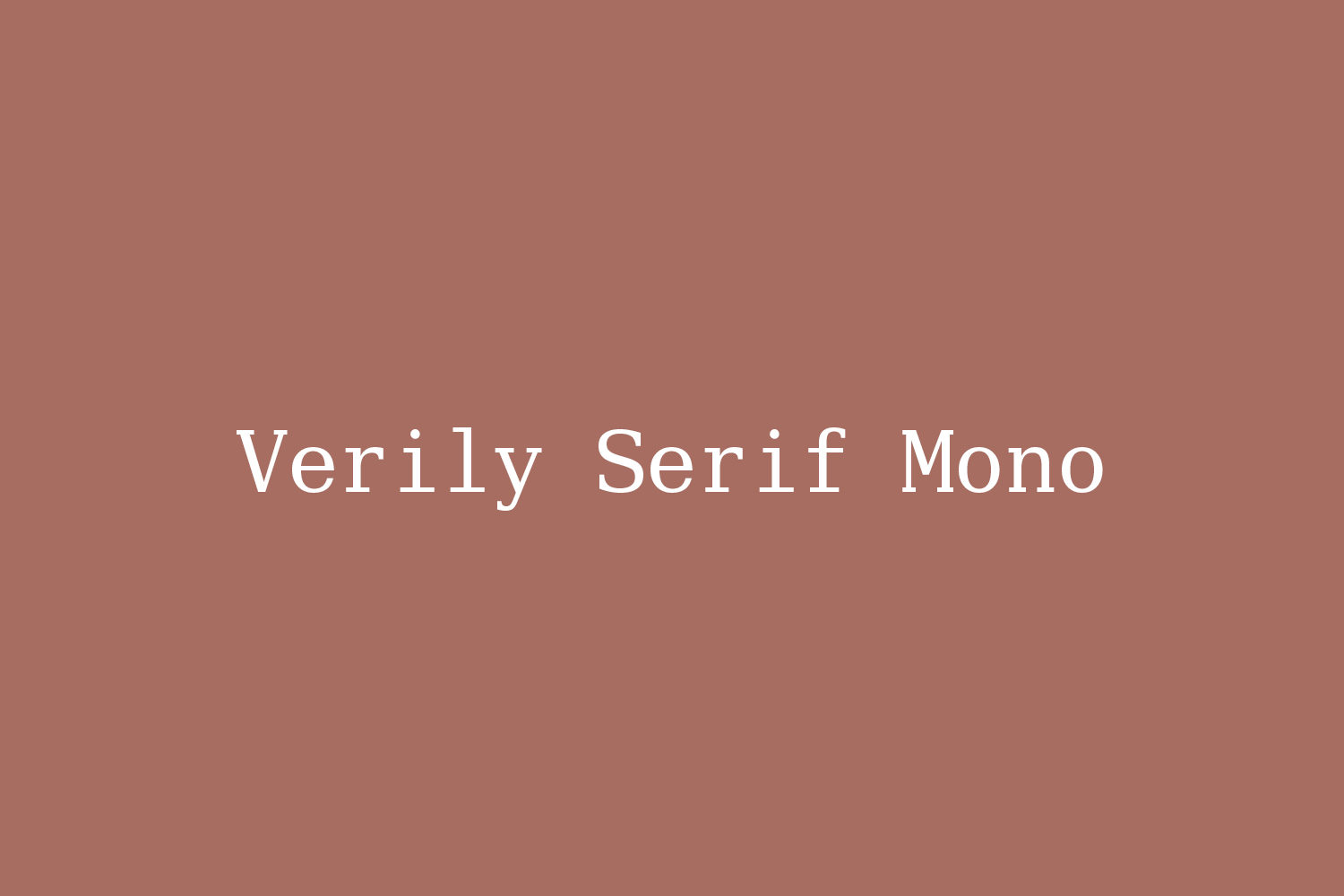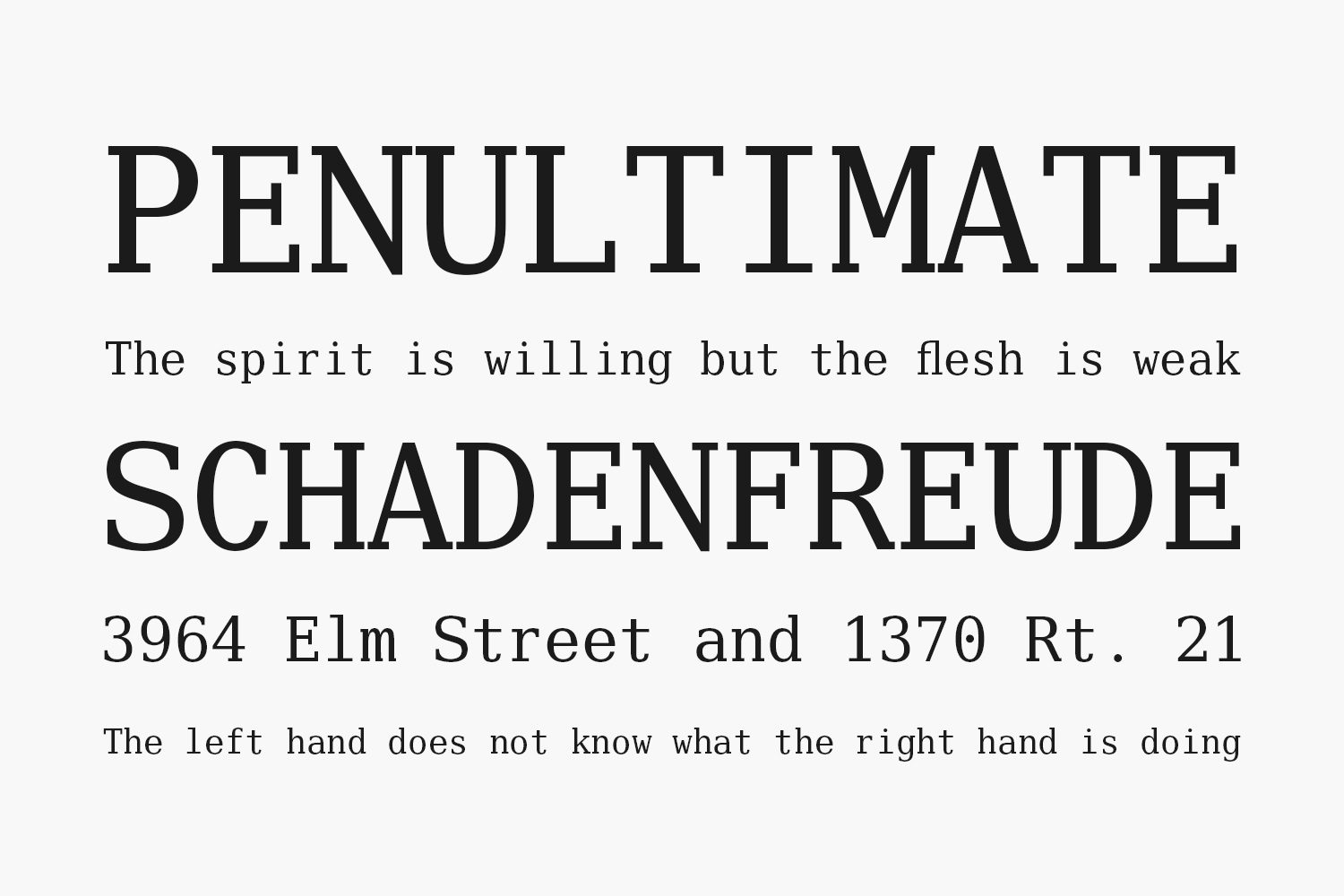
Verily Serif Mono is derived from Bitstream Vera Serif with the same proportions as Bitstream Vera Sans Mono and only the primary ASCII characters have been modified; I have no plans at the moment to modify the extended character set or to do a bold version.
Designed by Stephen G. Hartke